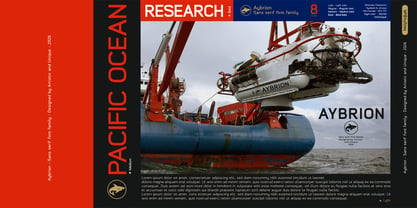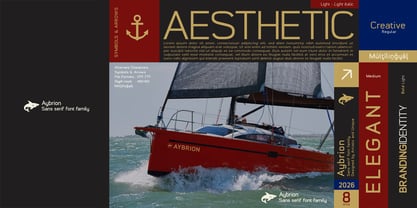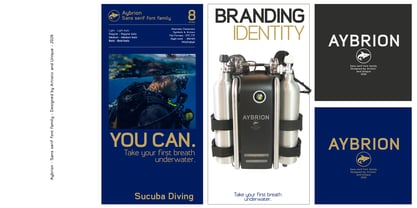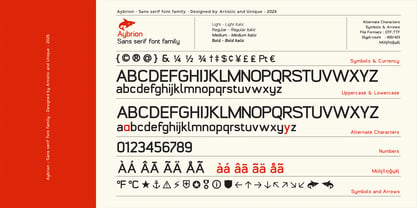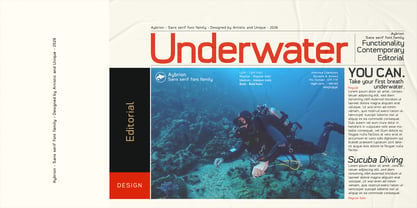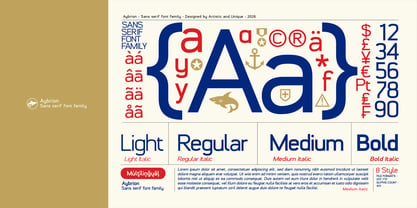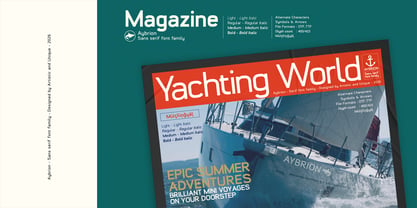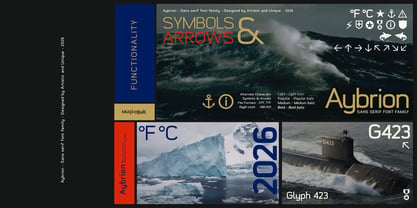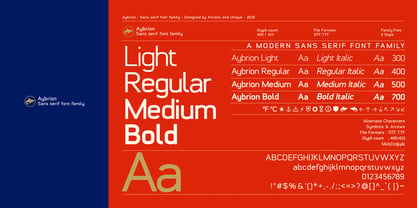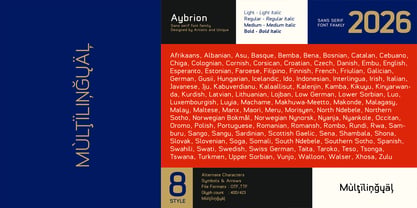
Aybrion
The Aybrion Font Family was designed by Osman Taner Kucukgenc and published by Artisticandunique. Aybrion contains 8 styles and family package options. More about this family
Aybrion - Sans Serif Font Family - 8 Styles - Multilingual Support. This sans serif font aims to offer an innovative solution for designers looking to enhance their brand toolsets; it stands out with its versatility, futuristic and industrial modern look. Its structural anatomy provides a futuristic and innovative appearance while seamlessly integrating into both digital and print projects. This family features eight different styles offering consistent readability and elegance across a variety of creative works. Multilingual support further enhances flexibility; lighter tones provide an elegant visual appearance, while darker tones stand out with consistent and strong emphasis in headlines. Features: * Multilingual support, * 8 different styles, * Style alternatives, * Rich glyph options (423), * Perfect for branding and editorial design, * Suitable for web and logo design, * Alternative characters and additional symbols. Whether designing books, magazines, newspapers, packaging, industrial brand, editorial design, websites, or logos, the The Aybrion font family offers a harmonious blend of aesthetics for your modern and innovative needs. Enjoy.
Technologies can change and evolve. However, no matter how much the production environments change, good typography created with the principles of creative and correct use of fonts will not change. Osman Taner Küçükgenç is an Istanbul based designer with a background in graphic design and advertising. He created his personal brand, Artistic and Unique, in order to create quality digital content. He spent years designing typography and typefaces, which are an important part of his academic education and therefore his profession. Fonts are an important tool in all visual communication. While designing the typeface to be unique, having a story behind it gives it character. It is intended to design this tool in the best and most functional way for the user.